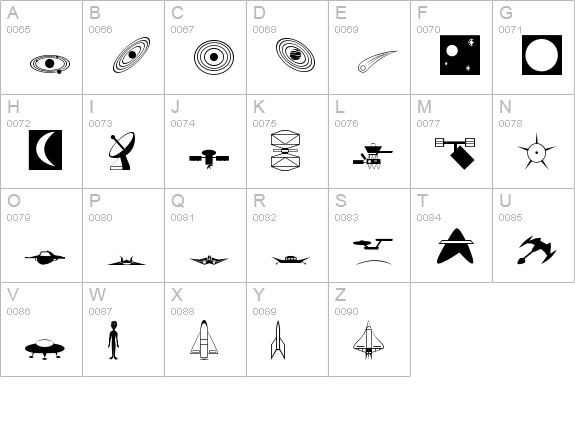
Carr Space font is a modern and sleek typeface that effortlessly combines elegance with a touch of playfulness. Its clean lines and rounded edges make it perfect for a wide range of design projects, from branding to social media graphics. This versatile font is sure to add a touch of sophistication to any design. Best of all, Carr Space font is completely free to download at FontsMarket.com. Don't miss out on this amazing opportunity to enhance your projects with this stylish and contemporary typeface. Download Carr Space font today and let your creativity soar!